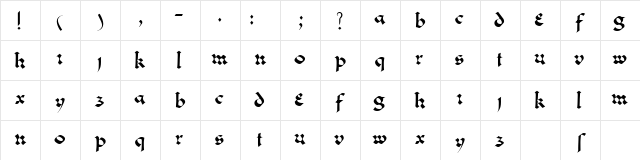
Complete LombardoBeneventan Regular glyph index. Displaying only characters natively supported by LombardoBeneventan Regular font.
LombardoBeneventan is a composed and adaptable typeface that performs quietly and consistently across a wide range of design contexts.